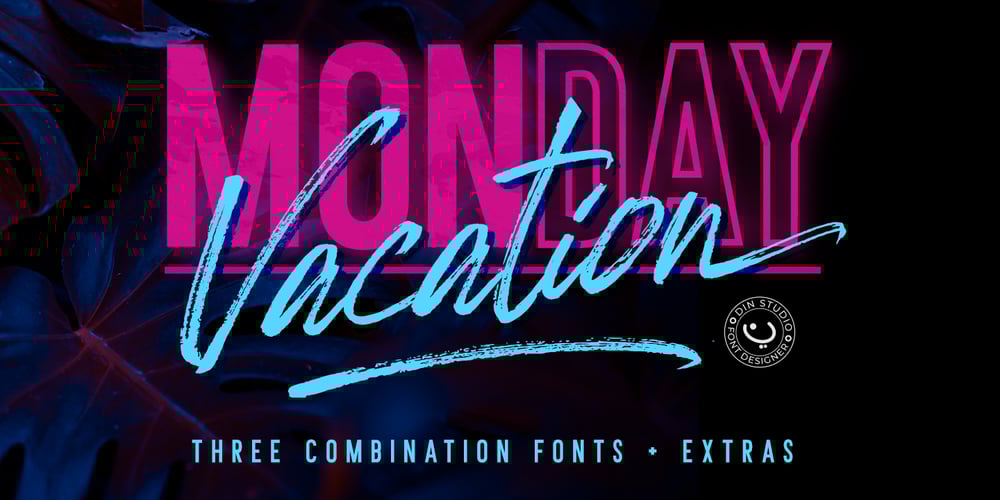
Monday Vacation Font Family was designed by Donis Miftahudin and published by Din Studio. Monday Vacation contains 2 styles and family package options. Introducing Monday Vacation Font. Monday Vacation is a brush font and combines with a sans font (Solid +outline). Made with a natural brush. The texture from the brush font will make your design more beautiful and powerful. This font is suitable for any design like branding, quotes, t-shirt printing and etc. Included: Monday Vacation Regular Monday Vacation Italic Monday Vacation Sans Solid Monday Vacation Sans Outline Monday Vacation Extra Features: Accents (Multilingual characters) 39 Alternates 52 Extra Swashes PUA encoded Numerals and Punctuations (OpenType Standard) Customer support I hope you enjoy it !! Thanks for visiting and purchasing my font! Best Regards Donis M